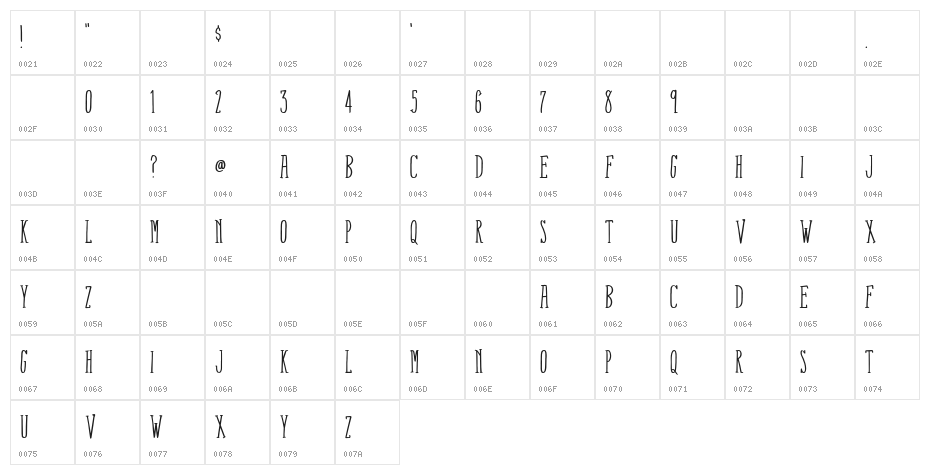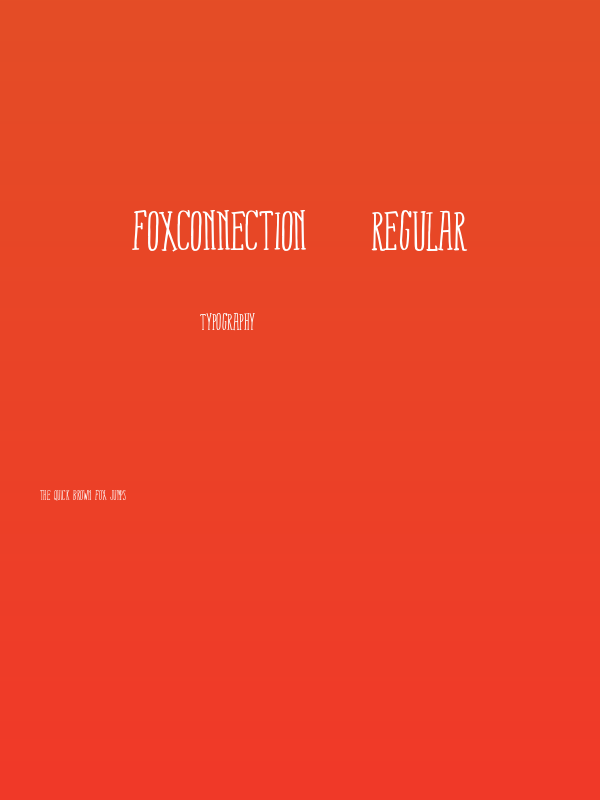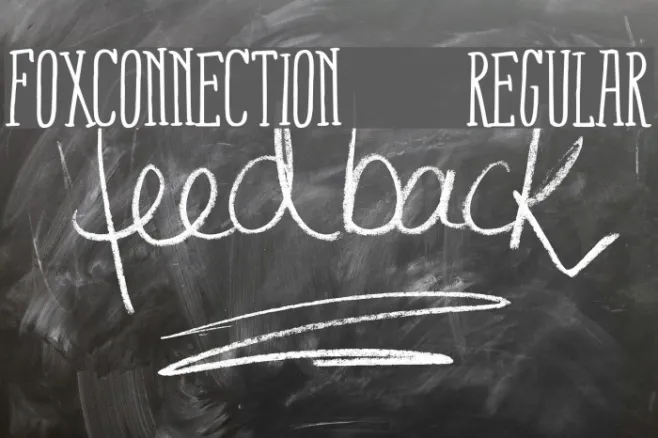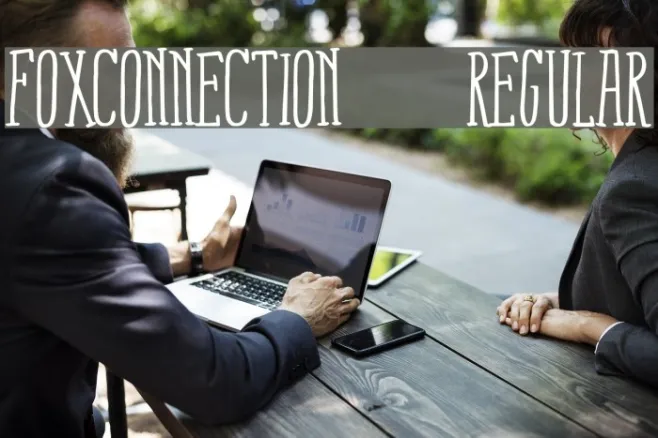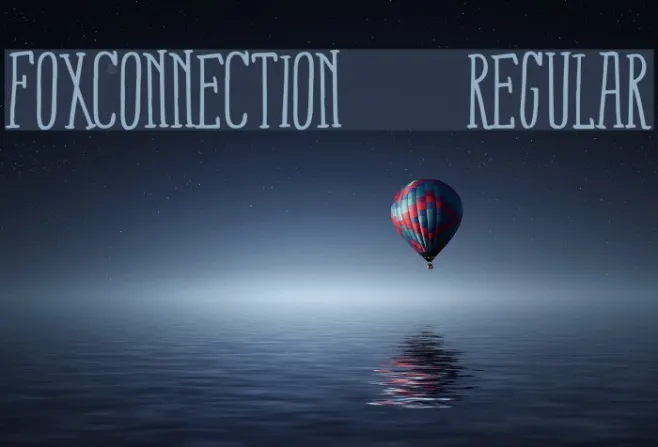
FoxConnection-Regular Font
FoxConnection-Regular Description
This font features a unique and playful design with elongated, slightly irregular strokes that give it a whimsical and artistic feel. The uppercase letters are tall and narrow, with a slight curvature that adds a touch of elegance. The lowercase letters maintain a consistent style, complementing the uppercase with their own quirky charm. Numbers are designed to match the overall aesthetic, with a similar height and stroke style. The special characters are creatively integrated, maintaining the font's distinctive personality. This font is perfect for projects that require a fun and engaging visual element.
| Overall Style | Playful and Artistic |
| Proposed Projects | Ideal for children's books, creative posters, playful branding, and artistic invitations. |